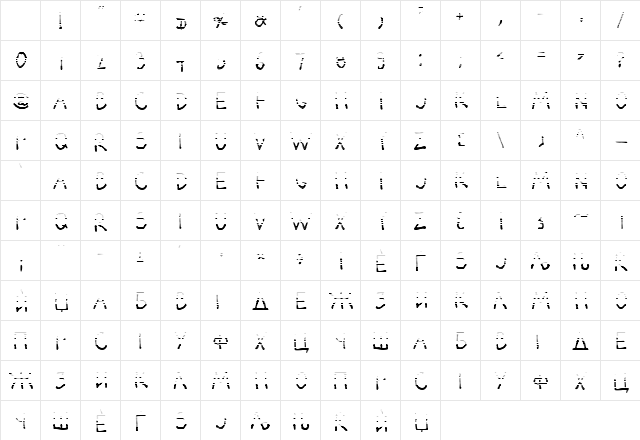
Complete Darbog gradient Regular glyph index. Displaying only characters natively supported by Darbog gradient Regular font.
Darbog gradient is a composed and adaptable typeface that performs quietly and consistently across a wide range of design contexts.